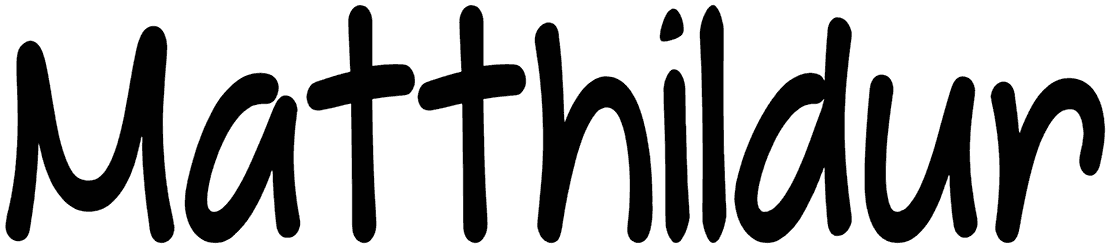
Matthildur Font
Even the first time you try a script font such as Matthildur in your posters, stickers, illustrations, logos, or social media posts, you can immediately notice how it multiplies their efficiency and quality. It comes with crooked and rounded letters, so this handwritten font is capable of sharing a vibe of momentum, professionalism, or softness with the audience.
Matthildur is a bold cartoon-style typeface. Its fun and whimsical appearance would look great in a variety of projects, such as logos, shop banners, advertisements, product labels, and more.